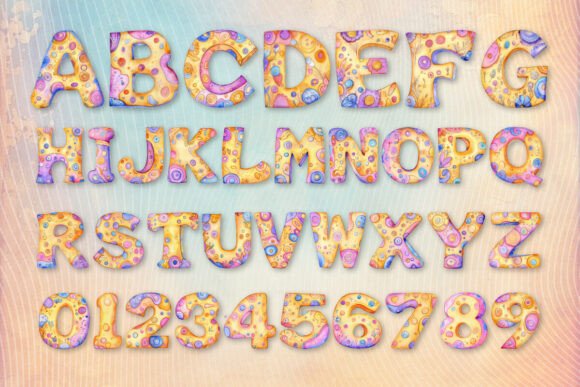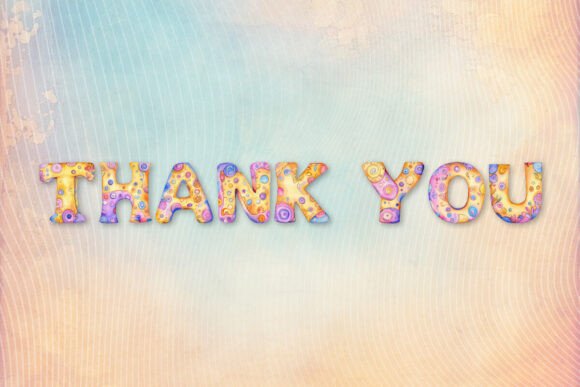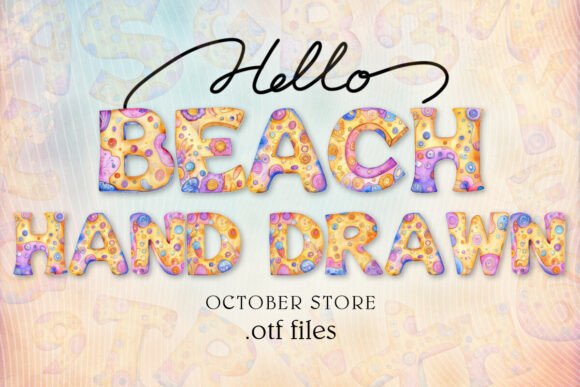
Introducing the Hand Drawn Beach Font: A Whimsical Summer Alphabet
Are you ready to add a touch of summer magic to your designs? Look no further than the Hand Drawn Beach Summer Alphabet Font, a delightful collection of 36 unique characters that capture the playful spirit of a child’s hand-drawn artwork. This charming font is perfect for designers and crafters who want to infuse their projects with a sense of whimsy and fun.
A Font that Doubles as a Coloring Book
The Hand Drawn Beach Font is more than just a typeface – it’s a summer story waiting to unfold on your craft project. With its carefully created letters and digits, this font offers a perfect blend of beach and summer themes, transporting your designs to a sunny coastal paradise. The font’s playful characters are reminiscent of a child’s drawing, making it an ideal choice for projects that require a touch of innocence and charm.
Key Features of the Hand Drawn Beach Font
- 36 unique characters: The font includes 26 carefully created letters and 10 digits, providing everything you need to create beautiful and eye-catching designs.
- Whimsical beach and summer theme: The font’s playful characters evoke the carefree spirit of summer and the beach, making it perfect for seasonal designs.
- Doubles as a coloring book: The font’s hand-drawn characters offer a fun and creative way to add color and personality to your designs.
The Hand Drawn Beach Font offers endless possibilities for designers and crafters. Here are a few ideas to get you started:
- Summer-themed crafts: Use the font to create adorable beach-themed crafts, such as signs, banners, and decorations.
- Digital art: Incorporate the font into your digital art projects, such as illustrations, graphics, and social media posts.
- Stationery and cards: Add a touch of whimsy to your stationery and cards with the Hand Drawn Beach Font.
- Web design: Use the font to create eye-catching website headers, titles, and other design elements.
Tips for Using the Hand Drawn Beach Font
To get the most out of the Hand Drawn Beach Font, here are a few tips to keep in mind:
- Experiment with colors: The font’s hand-drawn characters offer a fun and creative way to add color and personality to your designs.
- Mix and match characters: Combine different characters to create unique and eye-catching designs.
- Use with other summer-themed elements: Pair the font with other summer-themed elements, such as beach balls, ice cream cones, and sunglasses, to create a cohesive and playful design.
The Hand Drawn Beach Font is a delightful and whimsical addition to any designer’s or crafter’s toolkit. With its carefully created letters and digits, this font captures the playful spirit of a child’s hand-drawn artwork, making it perfect for summer-themed designs. Whether you’re creating digital art, crafts, or stationery, this font is sure to bring a touch of summer magic to your projects.